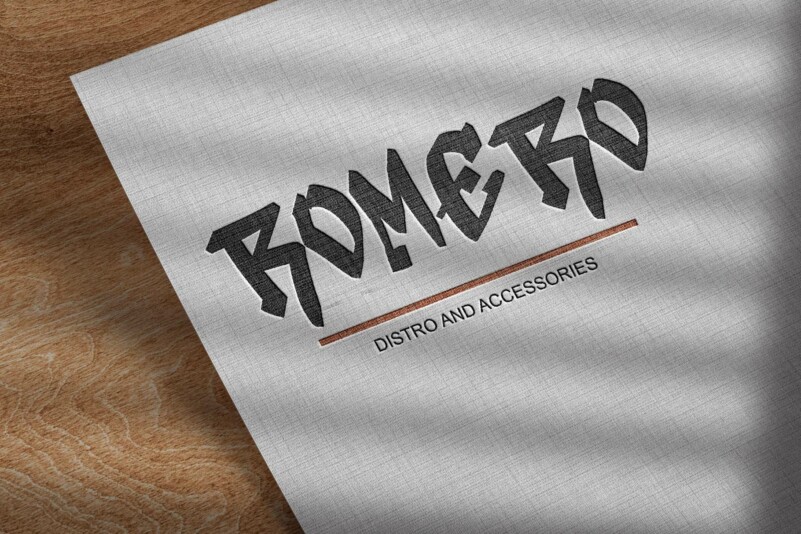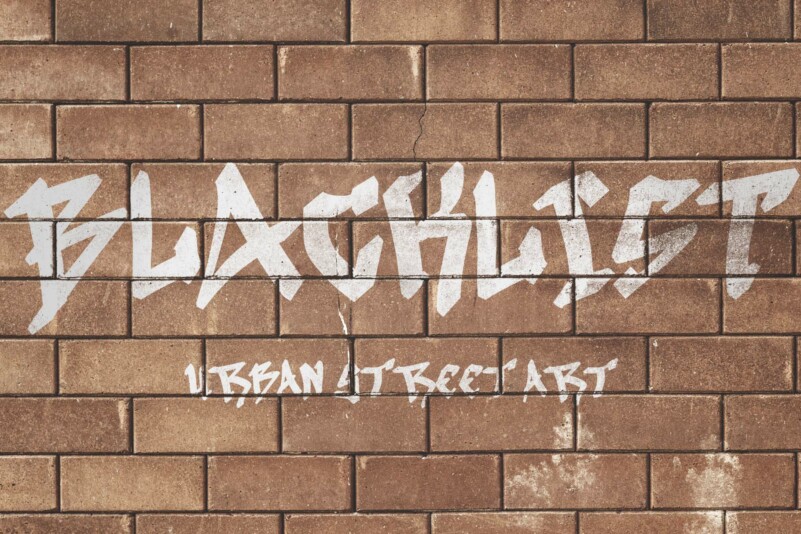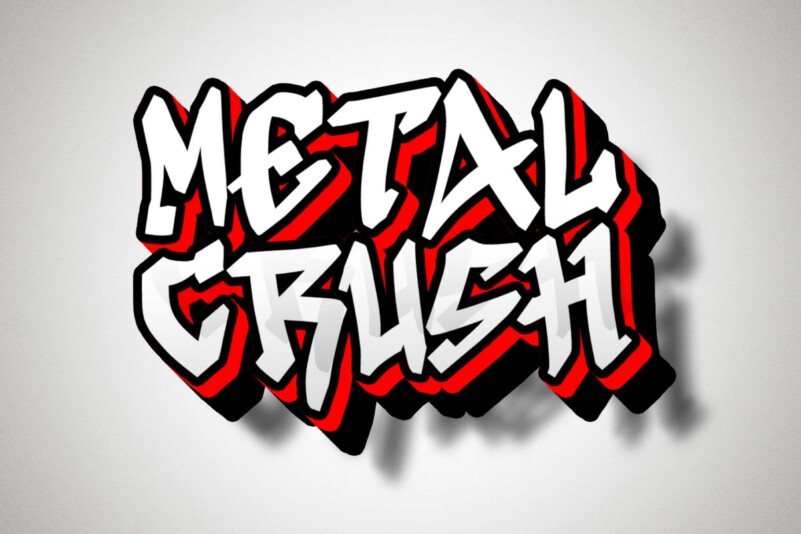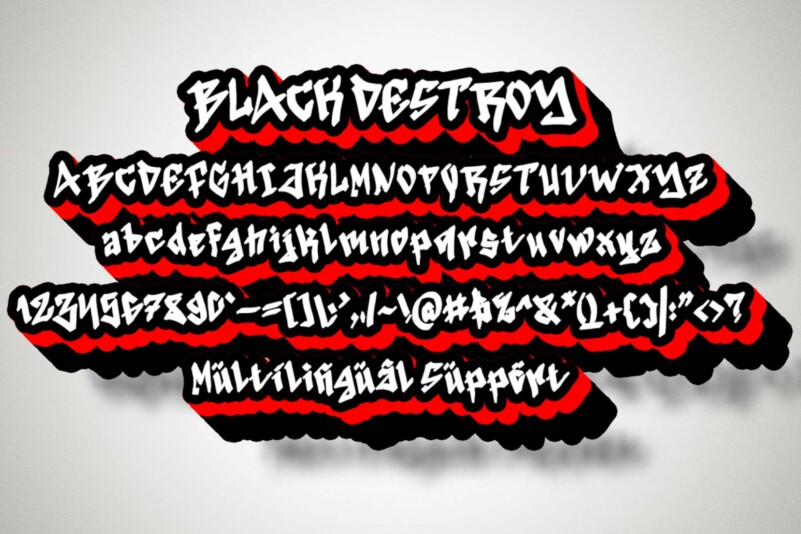
Black Destroy Font
Black Destroy Font is a very elegant and unique graffiti font. This font is equipped with uppercase, lowercase, numerals, punctuation, and multilingual support. It is very suitable for painting street walls, designing t-shirts, jackets, logos, stickers, tattoos, bag designs, and others.